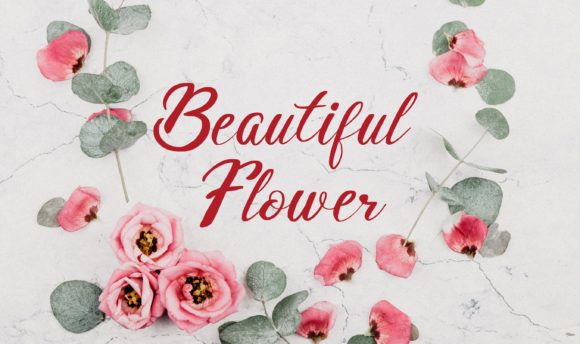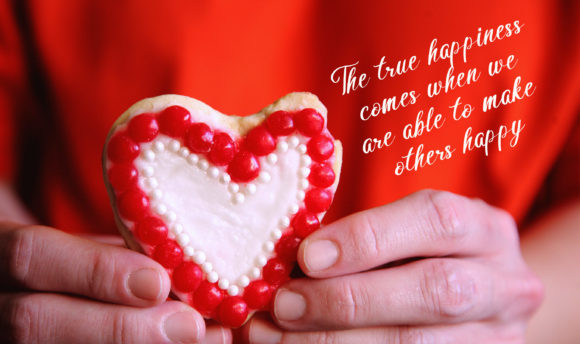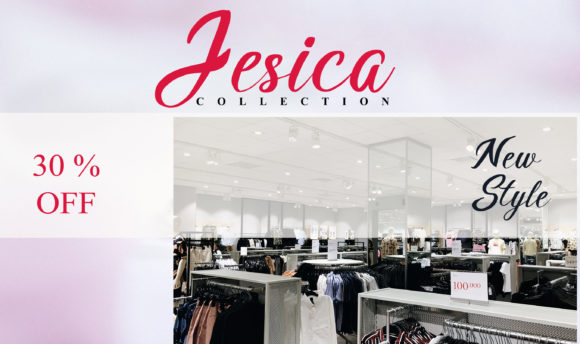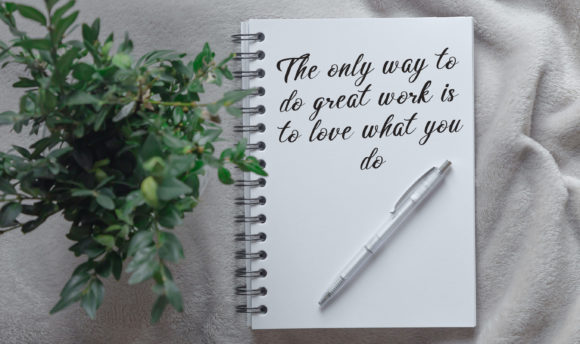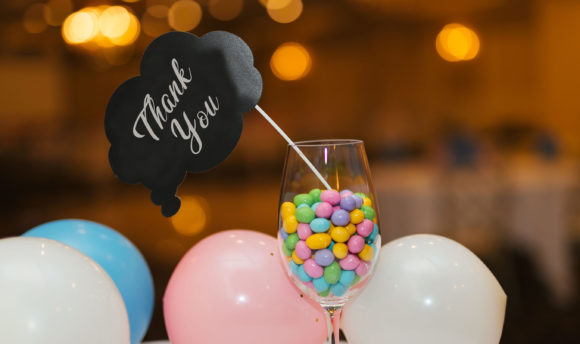
Candylover Font: The Sweetest Addition to Your Design Collection
Are you a designer or crafter looking for a unique and elegant font to elevate your projects? Look no further than Candylover Font! This stunning handwritten font is sure to capture your heart with its incredibly distinct and timeless style. In this article, we’ll dive into the world of Candylover Font, exploring its features, benefits, and uses, as well as provide tips on how to make the most of this beautiful font.
What is Candylover Font?
Candylover Font is a flowing handwritten font that exudes elegance and sophistication. Its smooth, cursive lines and delicate flourishes make it perfect for a wide range of projects, from wedding invitations and branding materials to social media graphics and crafts. With its classic yet modern feel, Candylover Font is sure to add a touch of whimsy and romance to any design.
Key Features of Candylover Font
- Elegant and flowing design: Candylover Font features smooth, connected letters that create a beautiful, flowing effect.
- Handwritten style: This font’s handwritten style gives it a personal and intimate feel, perfect for designs that require a touch of warmth and personality.
- Distinct and timeless: Candylover Font’s unique style is both modern and classic, making it a versatile choice for a wide range of projects.
- Easy to read: Despite its elegant and cursive design, Candylover Font is surprisingly easy to read, making it perfect for body text and headlines.
Benefits of Using Candylover Font
So why choose Candylover Font for your next project? Here are just a few benefits of using this beautiful font:
- Adds elegance and sophistication: Candylover Font’s elegant design is sure to elevate your projects and add a touch of sophistication.
- Versatile: This font is perfect for a wide range of projects, from digital designs to print materials.
- Unique and distinctive: With its flowing handwritten style, Candylover Font is sure to make your designs stand out from the crowd.
Using Candylover Font in Your Designs
So how can you use Candylover Font in your designs? Here are a few ideas to get you started:
- Wedding invitations and stationery: Candylover Font’s elegant design makes it perfect for wedding invitations, save-the-dates, and other stationery.
- Branding and packaging: This font’s unique style is sure to make your brand stand out, whether you’re designing a logo, business card, or product packaging.
- Social media graphics: Add a touch of elegance to your social media graphics with Candylover Font, perfect for quotes, promotions, and more.
- Crafts and DIY projects: This font is also perfect for crafters and DIY enthusiasts, adding a personal touch to handmade cards, gift tags, and other projects.
Tips for Getting the Most out of Candylover Font
To make the most of Candylover Font, here are a few tips to keep in mind:
- Use it sparingly: While Candylover Font is beautiful, it can be overwhelming if overused. Try using it as a headline or accent font to add visual interest.
- Experiment with colors and textures: This font looks stunning in a variety of colors and textures, so don’t be afraid to experiment and find the perfect combination for your design.
- Pair it with other fonts: Candylover Font pairs beautifully with other fonts, so try combining it with a bold or sans-serif font for added visual interest.
In conclusion, Candylover Font is a beautiful and elegant handwritten font that’s perfect for designers and crafters looking to add a touch of sophistication to their projects. With its flowing design, distinct style, and versatility, this font is sure to become a favorite in your collection. So why wait? Fall in love with Candylover Font and start creating spectacular designs today!